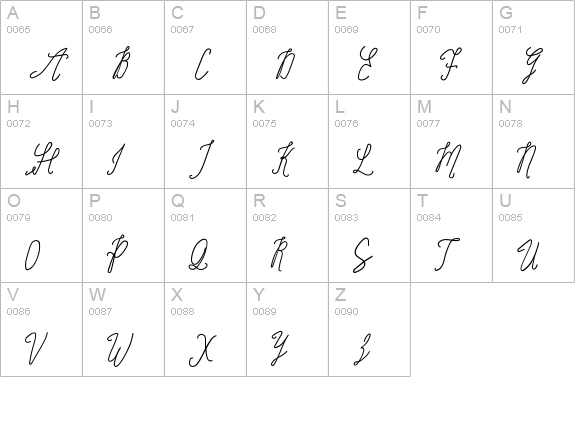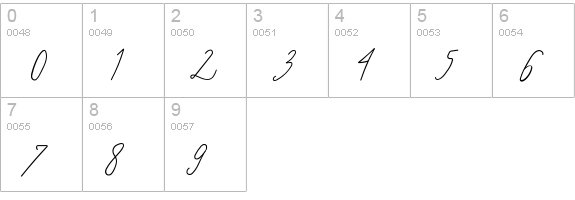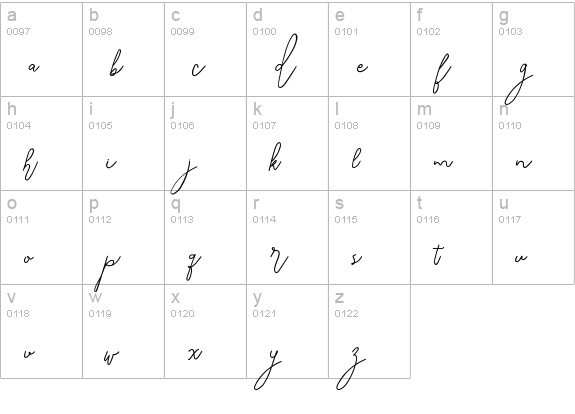
SignatureScriptBold Font Details
SignatureScriptBold is a stylish and elegant font that exudes sophistication and class. Its bold strokes and flowing curves make it perfect for adding a touch of luxury to any design project. Whether you're creating wedding invitations, branding materials, or social media graphics, SignatureScriptBold will elevate your work to the next level. The best part? This exquisite font is completely free to download at FontsMarket.com. Don't miss out on the opportunity to enhance your designs with the timeless beauty of SignatureScriptBold. Download it today and let your creativity soar!